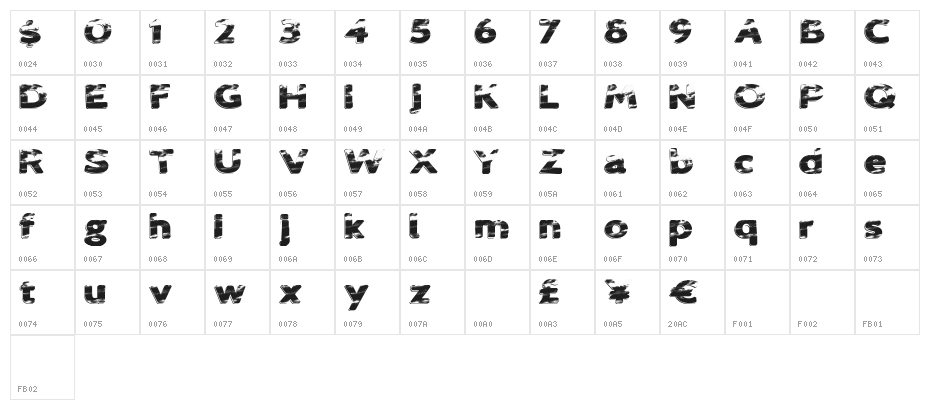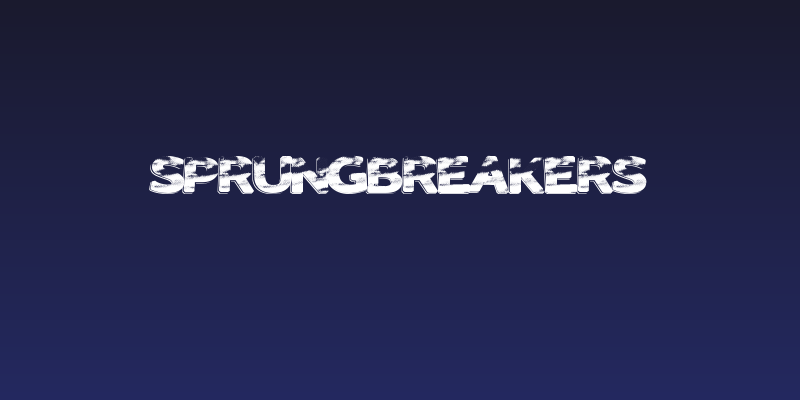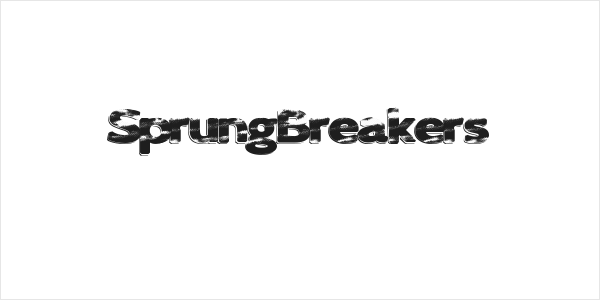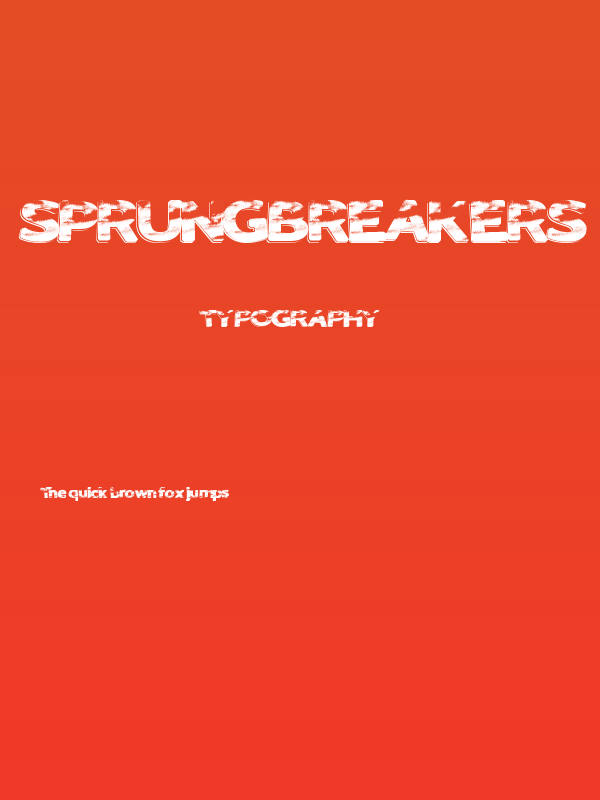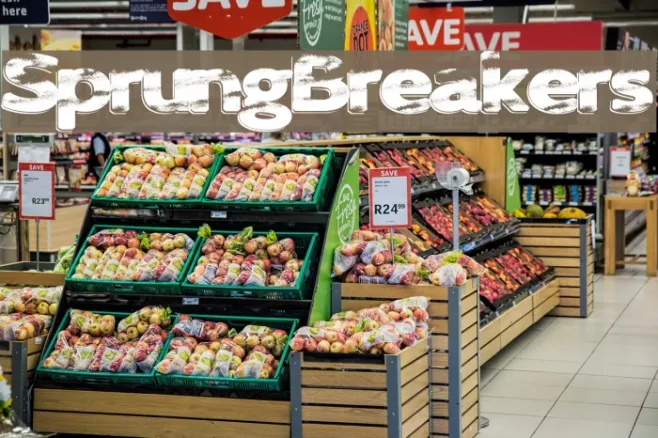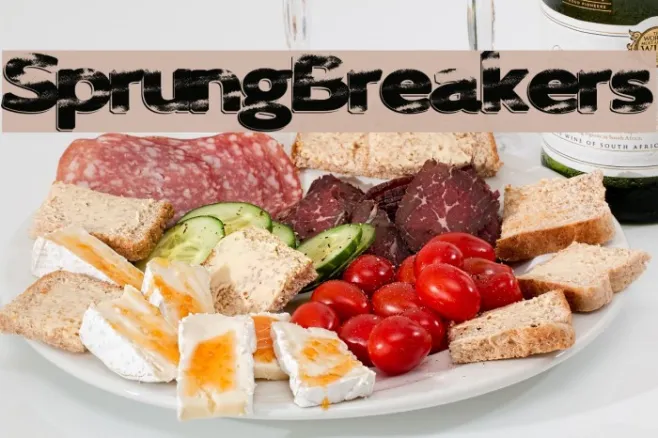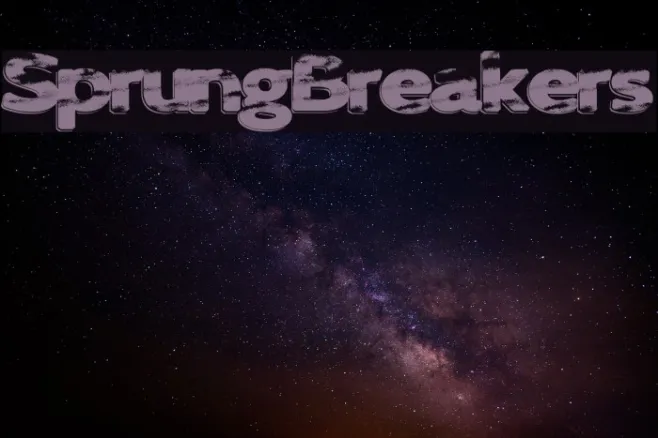
SprungBreakers Font
SprungBreakers Description
This font features a bold, distressed style with a three-dimensional effect. The characters have a textured appearance, giving them a rugged and dynamic look. The boldness of the letters is enhanced by a shadow effect that adds depth and dimension. The uppercase and lowercase letters maintain a consistent style, with rounded edges and a slightly condensed form. The numbers and special characters follow the same design principles, ensuring uniformity across all glyphs. This font is ideal for projects that require a strong, impactful visual presence.
| Overall Style | Modern, Edgy |
| Proposed Projects | Ideal for posters, album covers, branding, and any design needing a bold, edgy look. |